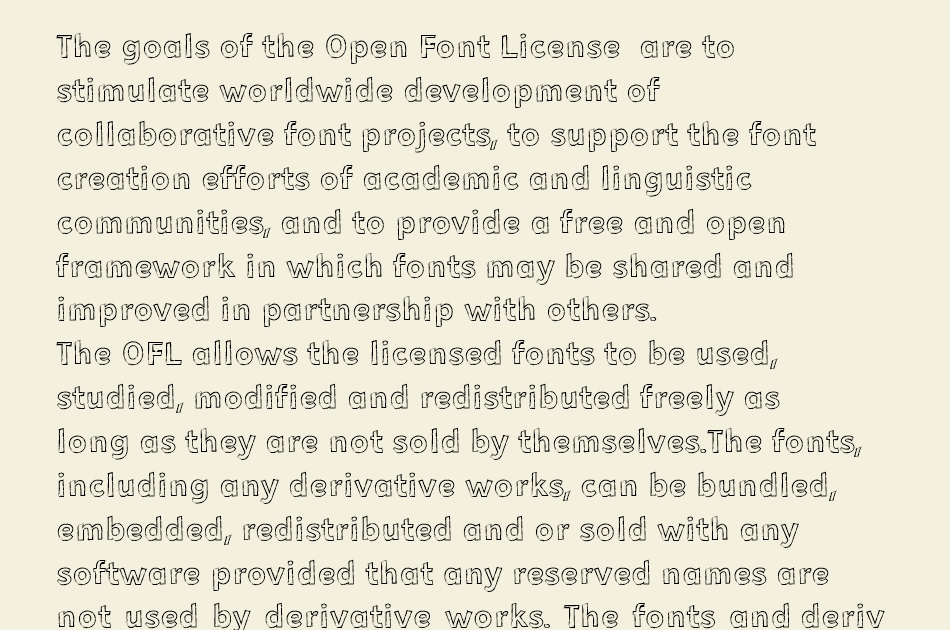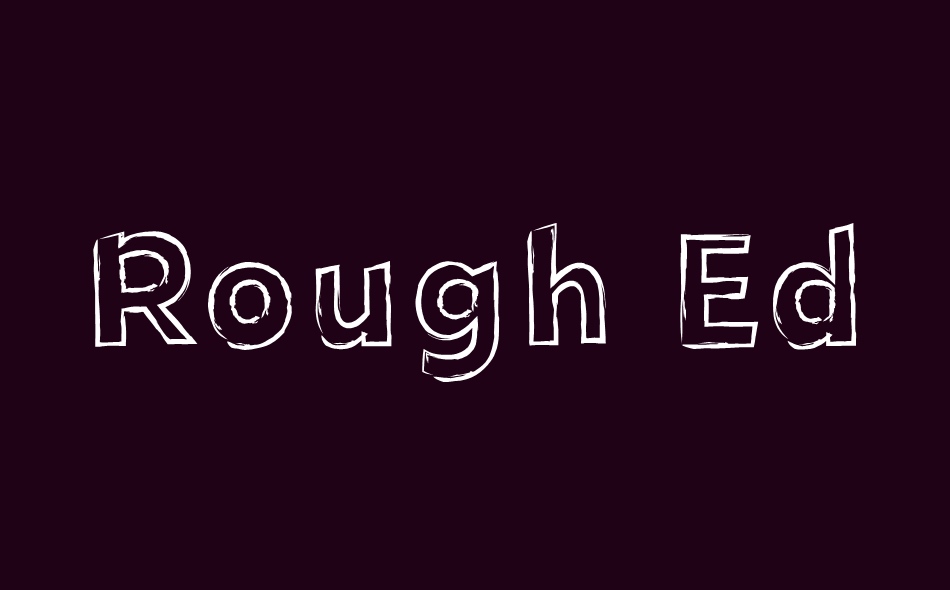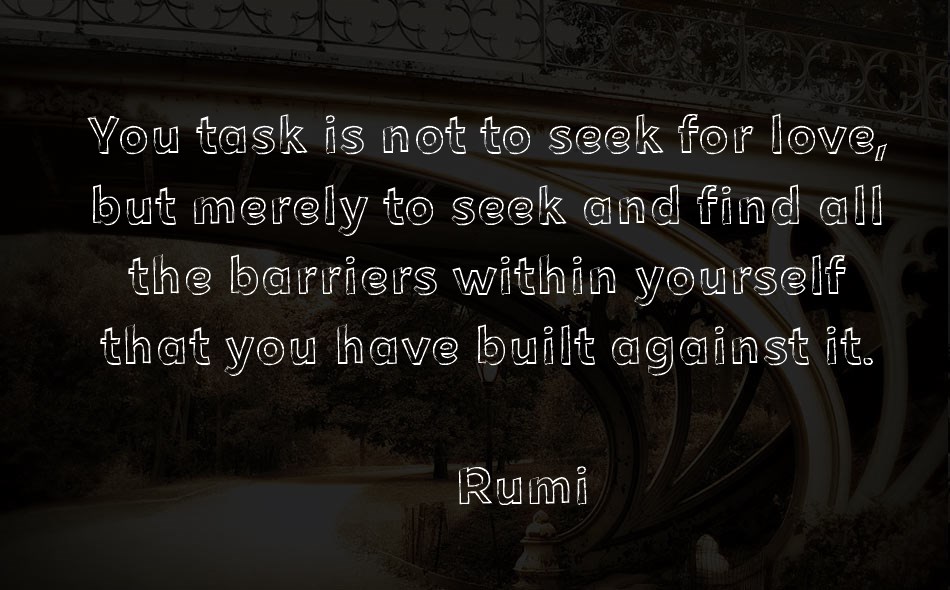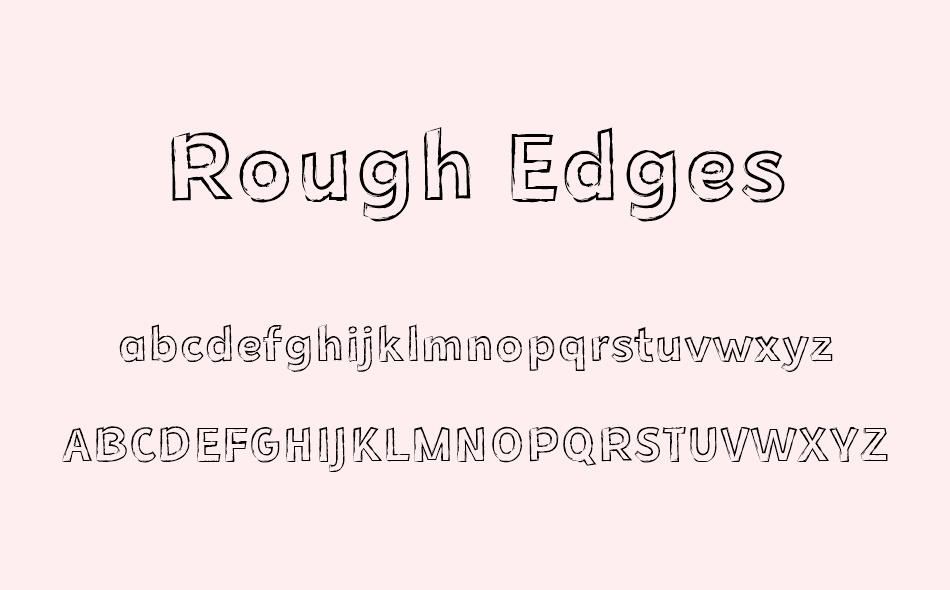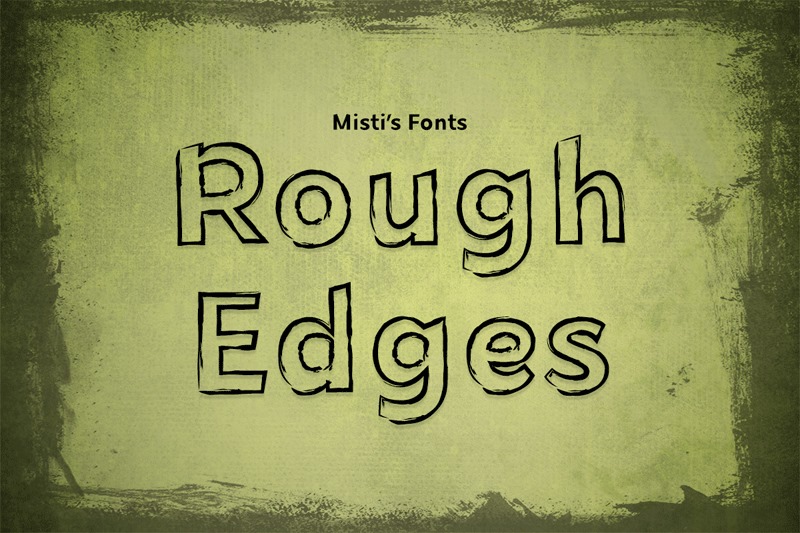
Rough Edges font
Rough Edges is a spooky outline font perfect for your Halloween projects. It would be great for shop logos and banners, advertisements, sublimation projects and so much more!